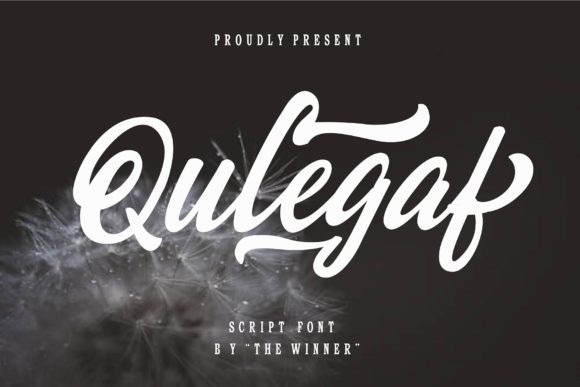
Immerse yourself in the world of calligraphy with Qulegaf, an enchanting script font brimming with artistry and flair. Its meticulously crafted brushstrokes mimic the delicate dance of an artist's hand, capturing the organic essence of handwritten scripts.
Unleash your creativity with Qulegaf, the perfect companion for expressing your unique style. Whether you're crafting elegant invitations, captivating social media posts, or enchanting designs, this font will effortlessly elevate your creations, infusing them with a touch of magic.
Let Qulegaf be your muse, inspiring you to paint words with passion and artistry. Its versatile nature knows no bounds, seamlessly adapting to a myriad of projects, from sophisticated logos and branding to playful illustrations and heartfelt letters.
Embrace the beauty of written art with Qulegaf, the font that transforms your creations into masterpieces. Its irresistible charm will captivate your audience, leaving a lasting impression that whispers of elegance and creativity.